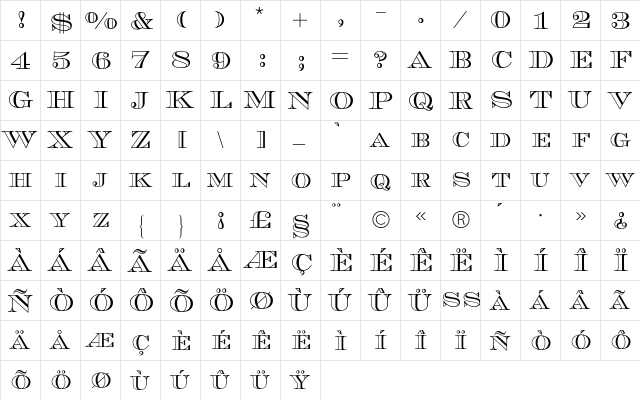
Chevalier Caps BQ Regular
Design Context for Chevalier Caps BQ Typeface
Chevalier Caps BQ is a composed and adaptable typeface that performs quietly and consistently across a wide range of design contexts.
Pro Tip: Use Chevalier Caps BQ in both headline and body roles to test its range before committing to a single application.